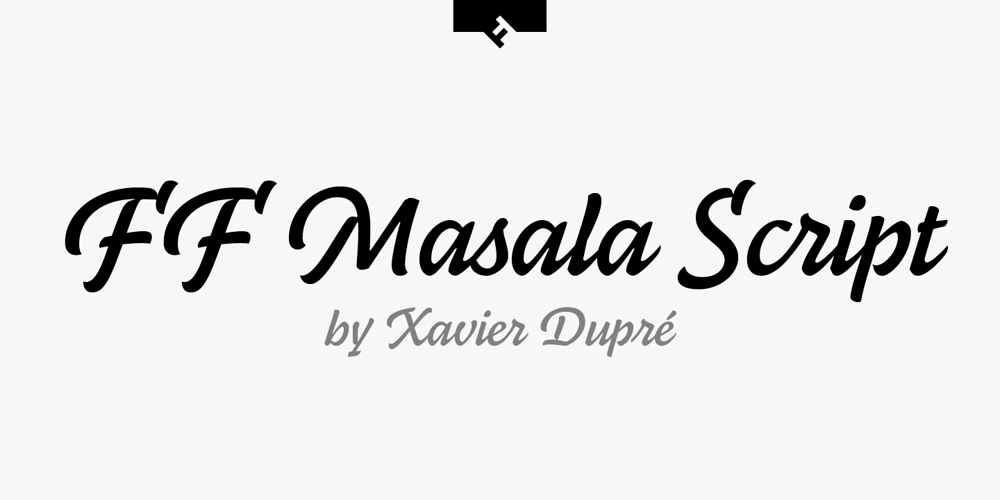
FF Masala Script Font Family was designed by Xavier Dupré and published by FontFont. FF Masala Script contains 3 styles and family package options. French type designer Xavier Dupré created this script FontFont in 2009. The family contains 3 weights: Regular, Bold, and Black and is ideally suited for advertising and packaging, festive occasions, editorial and publishing as well as poster and billboards. FF Masala Script provides advanced typographical support with features such as ligatures, alternate characters, case-sensitive forms, fractions, super- and subscript characters, and stylistic alternates. It comes with a complete range of figure set options – oldstyle and lining figures, each in tabular and proportional widths. This FontFont is a member of the FF Masala super family, which also includes FF Masala.